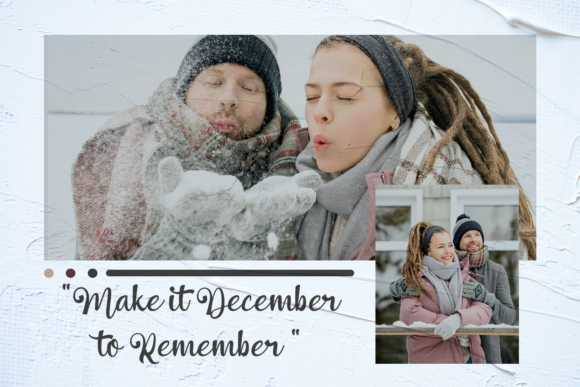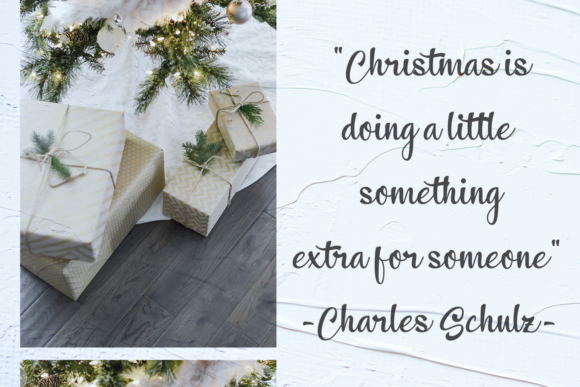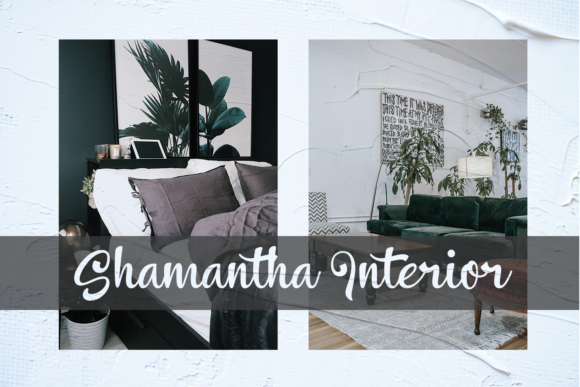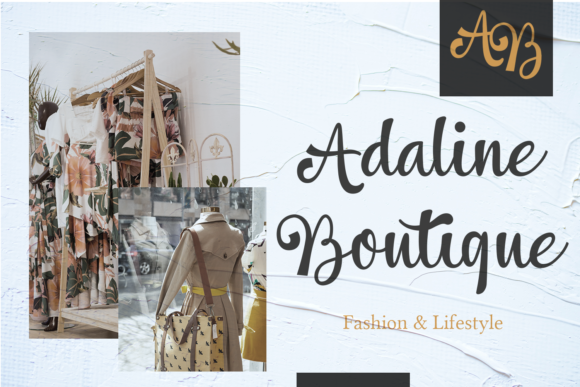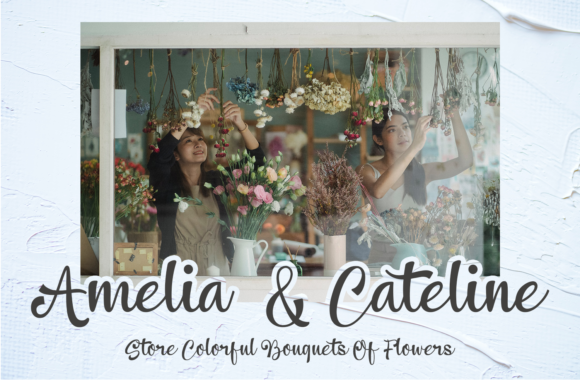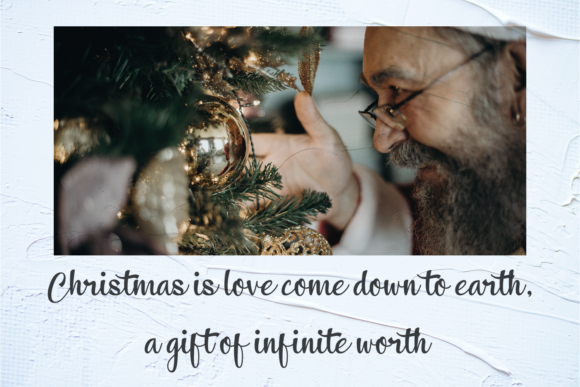
Hello Christmas Font: A Modern Handwritten Style for Your Designs
Are you looking for a font that adds a touch of modern elegance and sophistication to your designs? Look no further than the Hello Christmas font. This beautiful, handwritten font is perfect for fashion branding, editorial designs, and any project that requires a stylish and readable font. In this article, we’ll take a closer look at the Hello Christmas font, its features, and how you can use it to elevate your designs.
What is Hello Christmas Font?
Hello Christmas is a modern handwritten font that is designed to be both readable and stylish. It features smooth curves and a bold, yet elegant style that makes it perfect for a wide range of design projects. Whether you’re working on a fashion brand, editorial design, or any other project that requires a touch of sophistication, the Hello Christmas font is an excellent choice.
Key Features of Hello Christmas Font
The Hello Christmas font has several key features that make it an excellent choice for designers and crafters. Some of its key features include:
- Modern Handwritten Style: The Hello Christmas font features a modern handwritten style that is both elegant and sophisticated.
- Smooth Curves: The font is defined by smooth curves that give it a fluid and natural look.
- Readable and Bold: The font is both readable and bold, making it perfect for use in a wide range of design projects.
- Fashion and Editorial Friendly: The font is specifically designed for use in fashion branding and editorial designs, making it an excellent choice for designers working in these fields.
How to Use Hello Christmas Font in Your Designs
Using the Hello Christmas font in your designs is easy. Here are a few tips to get you started:
- Fashion Branding: Use the Hello Christmas font to add a touch of elegance and sophistication to your fashion brand. It’s perfect for use in logos, packaging, and marketing materials.
- Editorial Designs: The font is also perfect for use in editorial designs, such as magazines, newspapers, and blogs.
- Digital and Print Materials: The font can be used in both digital and print materials, making it a versatile choice for designers.
Why Choose Hello Christmas Font?
There are many reasons why you should choose the Hello Christmas font for your designs. Here are a few:
- Unique and Stylish: The font has a unique and stylish look that will set your designs apart from the crowd.
- Highly Readable: The font is highly readable, making it perfect for use in a wide range of design projects.
- Supports Multiple Languages: The font supports multiple languages, making it a great choice for designers working on international projects.
Tips for Pairing Hello Christmas Font with Other Fonts
Pairing the Hello Christmas font with other fonts can be a great way to add some variety to your designs. Here are a few tips for pairing the font with other fonts:
- Use a Serif Font: Pairing the Hello Christmas font with a serif font can create a nice contrast and add some visual interest to your designs.
- Use a Script Font: Pairing the Hello Christmas font with a script font can create a beautiful and elegant look.
- Experiment with Different Font Sizes: Experimenting with different font sizes can help you create a visually appealing design.
The Hello Christmas font is a beautiful and stylish font that is perfect for designers and crafters looking to add a touch of modern elegance to their designs. With its smooth curves, bold style, and high readability, it’s an excellent choice for fashion branding, editorial designs, and any project that requires a stylish and readable font. Whether you’re working on a digital or print project, the Hello Christmas font is a versatile choice that is sure to impress.